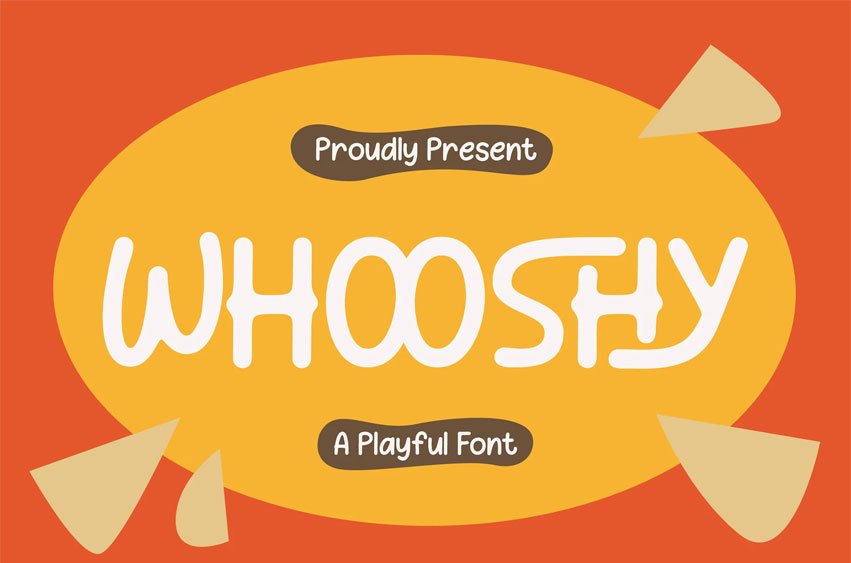
Whoosy Font is a playful and cheerful typeface designed to bring fun and energy to any creative project. With its quirky letterforms and bouncy rhythm, Whoosy adds a touch of whimsy that’s perfect for children’s books, party invitations, toy packaging, and any design that calls for a lighthearted and joyful feel. This font radiates personality and makes every word feel like an adventure.
- Uppercase alphabet A-Z
- Lowercase alphabet a-z
- Numbers 0-9
- Some punctuation
- Alternates & Ligatures